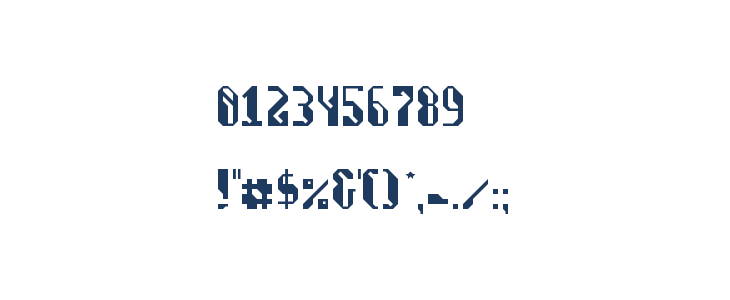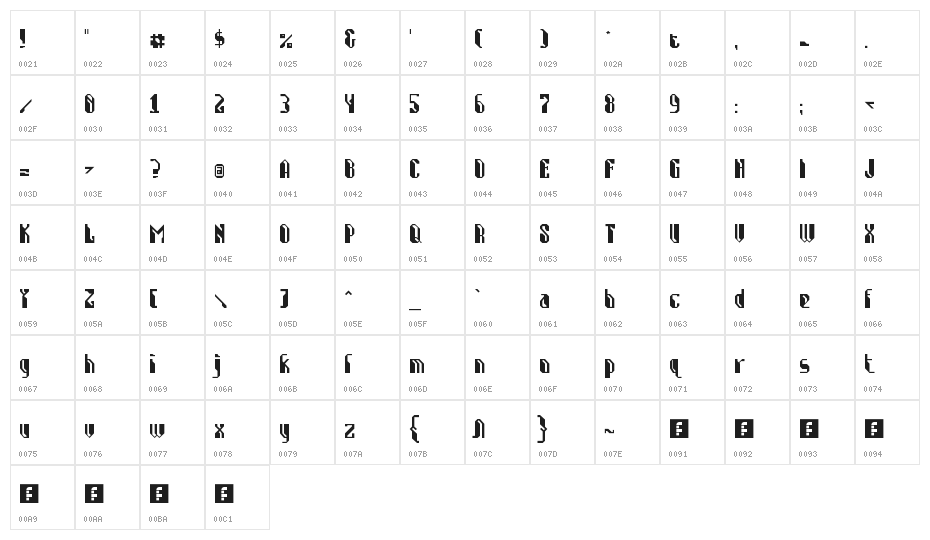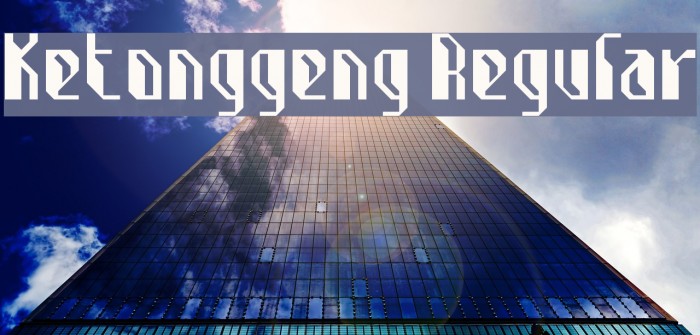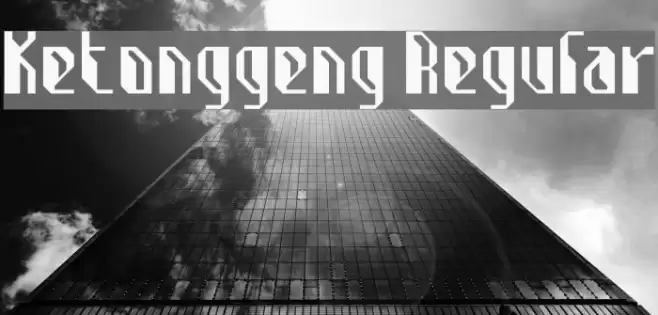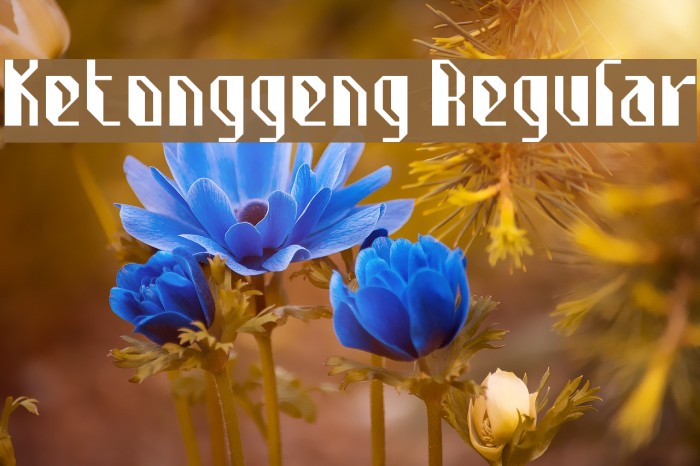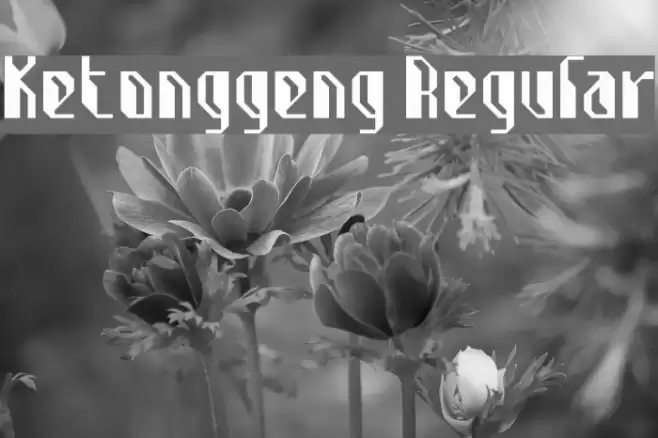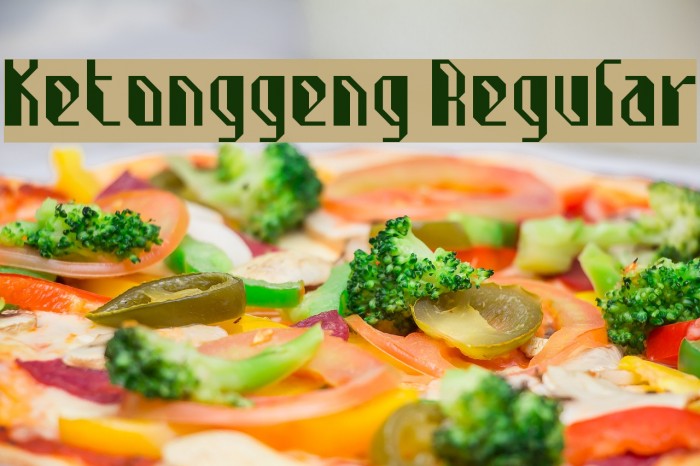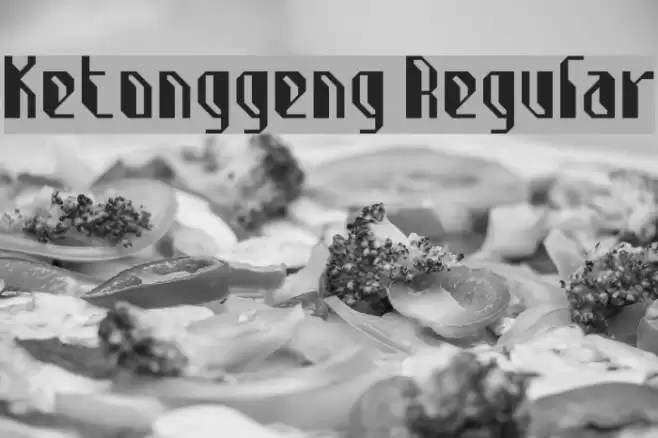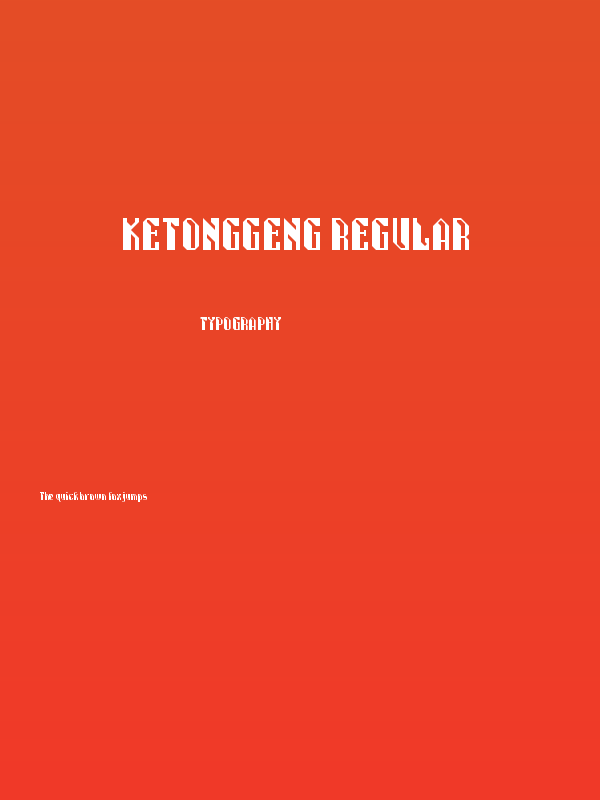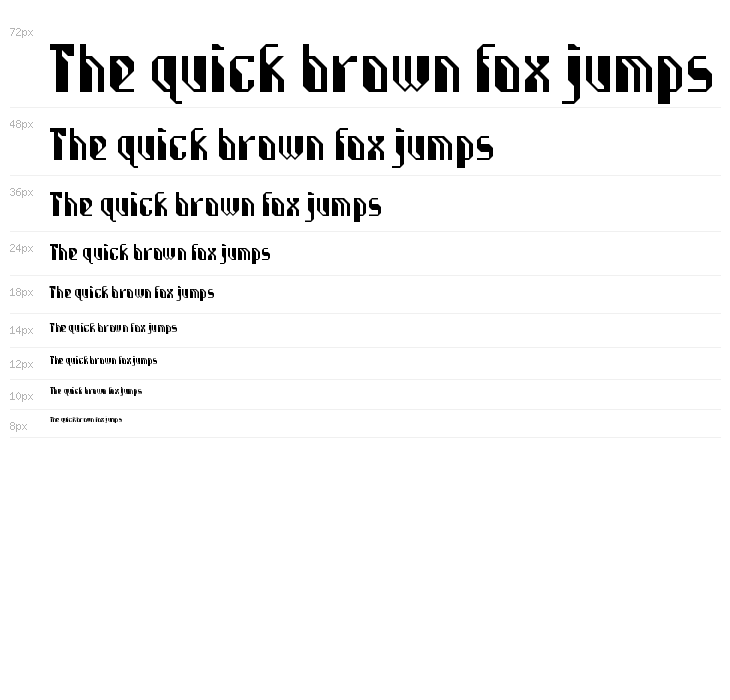
Ketonggeng Regular Font
Ketonggeng Regular Description
This font features a bold and angular design, characterized by sharp edges and geometric shapes. The uppercase letters are particularly striking, with a strong presence and a modern, industrial feel. The lowercase letters maintain the same angular style, providing a cohesive look across the typeface. Numbers and special characters are crafted with the same attention to detail, ensuring consistency throughout. The overall appearance is both futuristic and retro, making it suitable for projects that require a distinctive and eye-catching typeface.